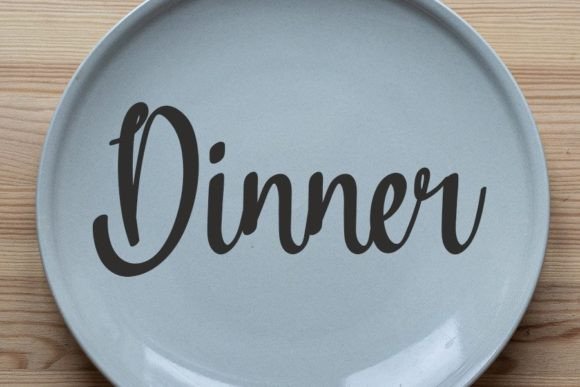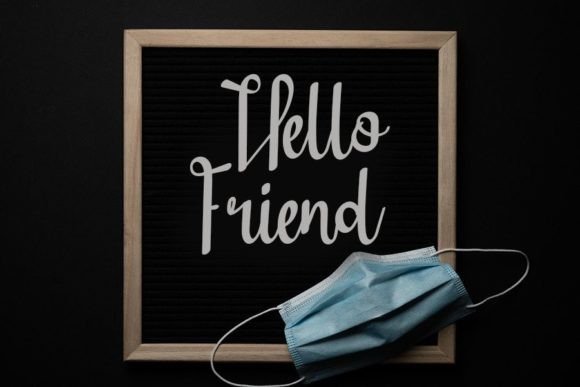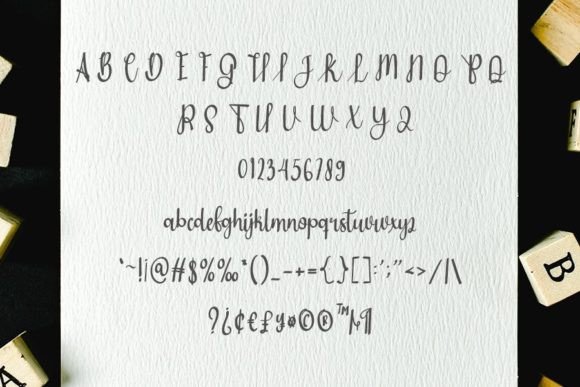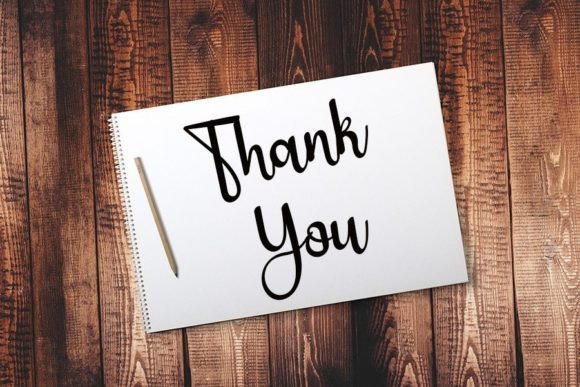
Introducing Directed Font: The Perfect Blend of Classy and Contemporary
Are you a designer or crafter looking for a font that exudes elegance and sophistication? Look no further than Directed Font, a friendly handwritten font that is sure to become a true favorite. With its careful blend of classy calligraphic influences and modern freshness, Directed Font is the perfect addition to any project.
The Story Behind Directed Font
Directed Font was created with the intention of crafting a unique and versatile font that would appeal to a wide range of designers and crafters. The designers behind Directed Font wanted to create a font that would not only be beautiful but also highly legible and easy to read. After careful consideration and meticulous attention to detail, Directed Font was born.
Key Features of Directed Font
- Handwritten with Love: Directed Font is a carefully crafted handwritten font that is full of personality and charm.
- Classy Calligraphic Influences: The font maintains a sense of elegance and sophistication, making it perfect for high-end projects.
- Contemporary and Fresh: Despite its classic influences, Directed Font feels modern and fresh, ensuring it will fit right in with your contemporary designs.
- Highly Legible: The font is designed to be easy to read, making it perfect for use in a variety of applications, from headings and titles to body text.
- Versatile: Directed Font is suitable for a wide range of projects, including branding, packaging, signage, and more.
What Makes Directed Font So Special?
So, what sets Directed Font apart from other fonts on the market? For starters, its unique blend of classic and modern elements makes it a true standout. The font’s handwritten nature gives it a personal and approachable feel, while its calligraphic influences add a touch of sophistication and elegance. Additionally, Directed Font is incredibly versatile, making it suitable for use in a wide range of applications.
Using Directed Font in Your Designs
Directed Font is perfect for designers and crafters who want to add a touch of personality and elegance to their work. Here are just a few ideas for using Directed Font in your designs:
- Branding and Logo Design: Use Directed Font to create a unique and memorable brand identity that will help you stand out from the competition.
- Wedding and Event Stationery: Add a touch of elegance and sophistication to your wedding or event stationery with Directed Font.
- Packaging Design: Use Directed Font to create eye-catching and effective packaging that will help your product stand out on store shelves.
- Signage and Display: Directed Font is perfect for use in signage and display applications, such as menus, posters, and banners.
Tips and Tricks for Getting the Most Out of Directed Font
To get the most out of Directed Font, here are a few tips and tricks to keep in mind:
- Experiment with Different Sizes and Styles: Directed Font looks great in a variety of sizes and styles, so don’t be afraid to experiment and find the perfect look for your project.
- Pair it with Other Fonts: Directed Font pairs well with a variety of other fonts, so try combining it with some of your favorite fonts to create a unique and interesting look.
- Use it to Add Personality: Directed Font is all about personality and charm, so don’t be afraid to use it to add a touch of whimsy and fun to your designs.
In conclusion, Directed Font is a truly unique and special font that is sure to become a favorite among designers and crafters. With its perfect blend of classy calligraphic influences and modern freshness, Directed Font is the perfect addition to any project. Whether you’re looking to add a touch of elegance and sophistication or personality and charm, Directed Font is the perfect choice.